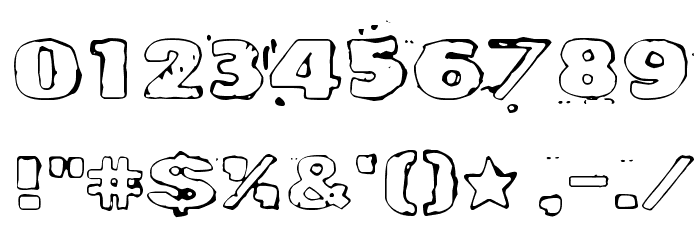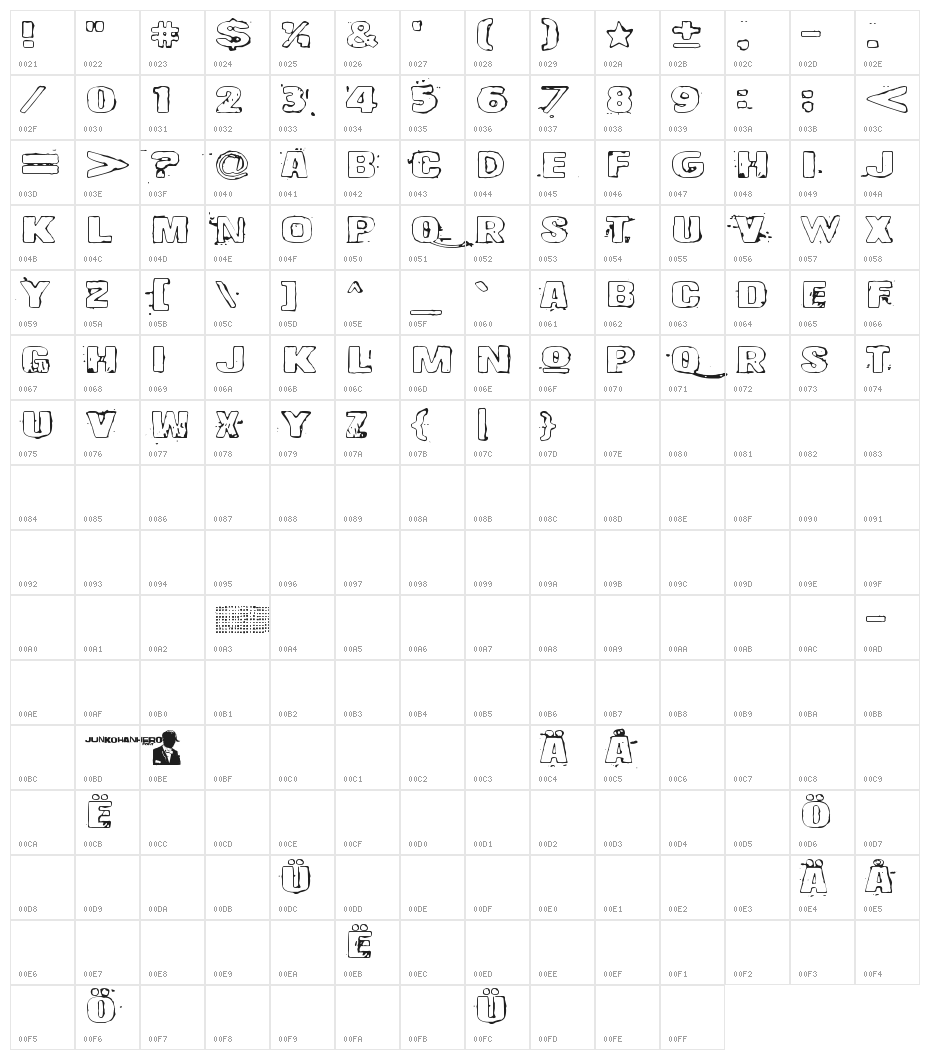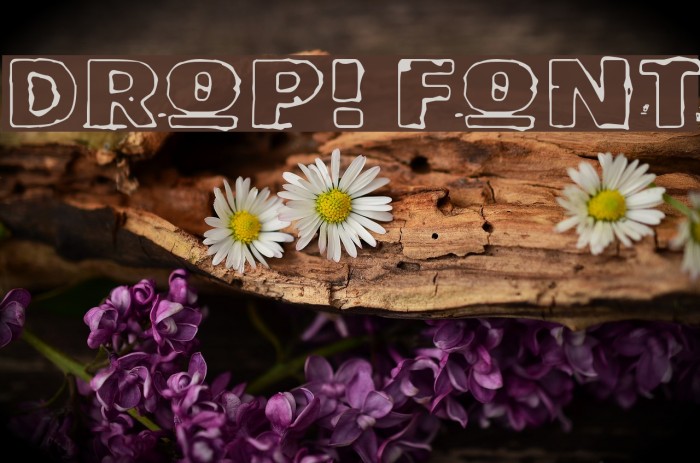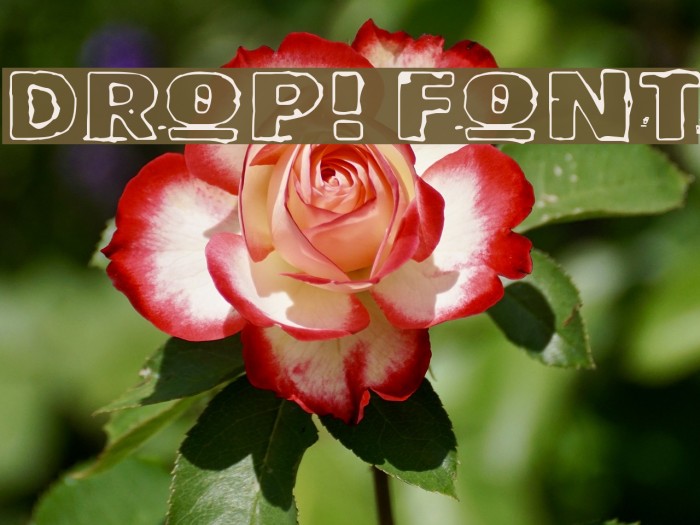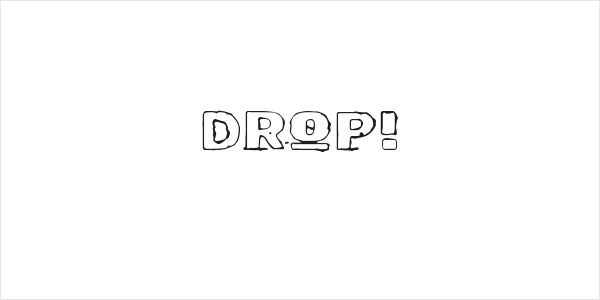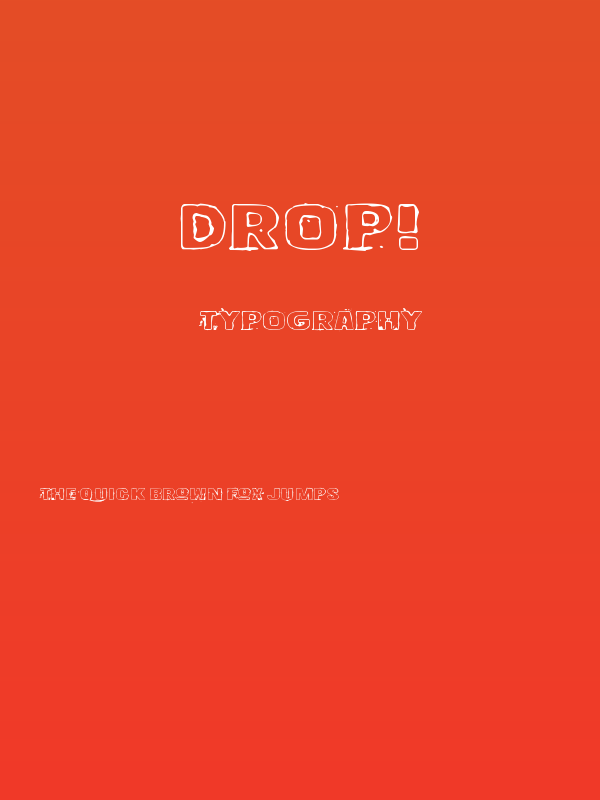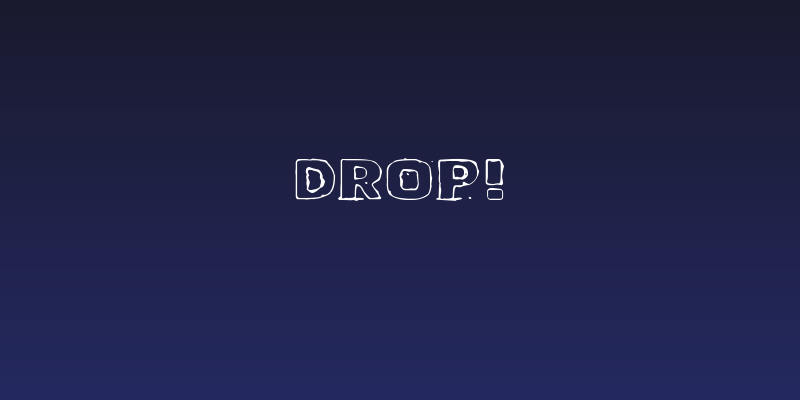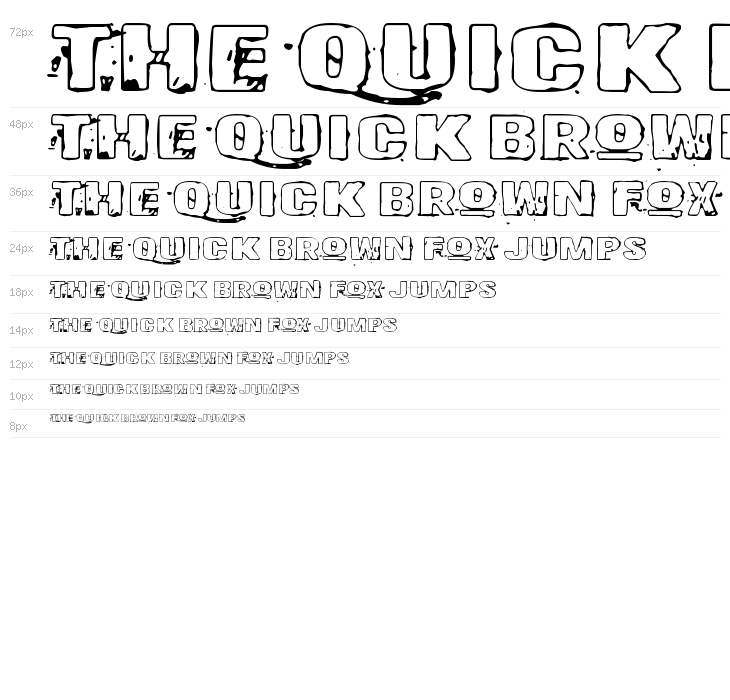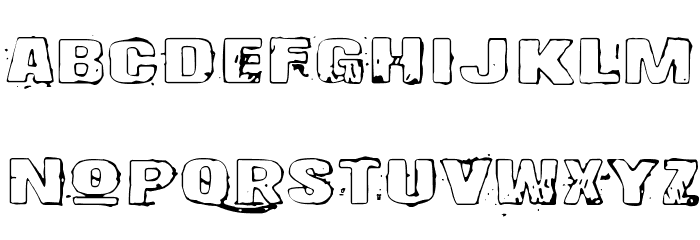
Drop! Font
Drop! Description
This font features a distressed, grunge style with a bold and impactful presence. Each character appears to have been weathered or eroded, giving it a unique, textured look. The uppercase and lowercase letters maintain a consistent width, while the numbers and special characters follow the same rugged aesthetic. The font's rough edges and irregularities contribute to its overall vintage and industrial feel, making it stand out in any design. Its boldness ensures readability despite the distressed appearance, making it suitable for attention-grabbing headlines or artistic projects.
| Overall Style | Vintage, Grunge |
| Proposed Projects | Ideal for album covers, posters, urban-themed designs, and any project requiring a rugged, vintage look. |